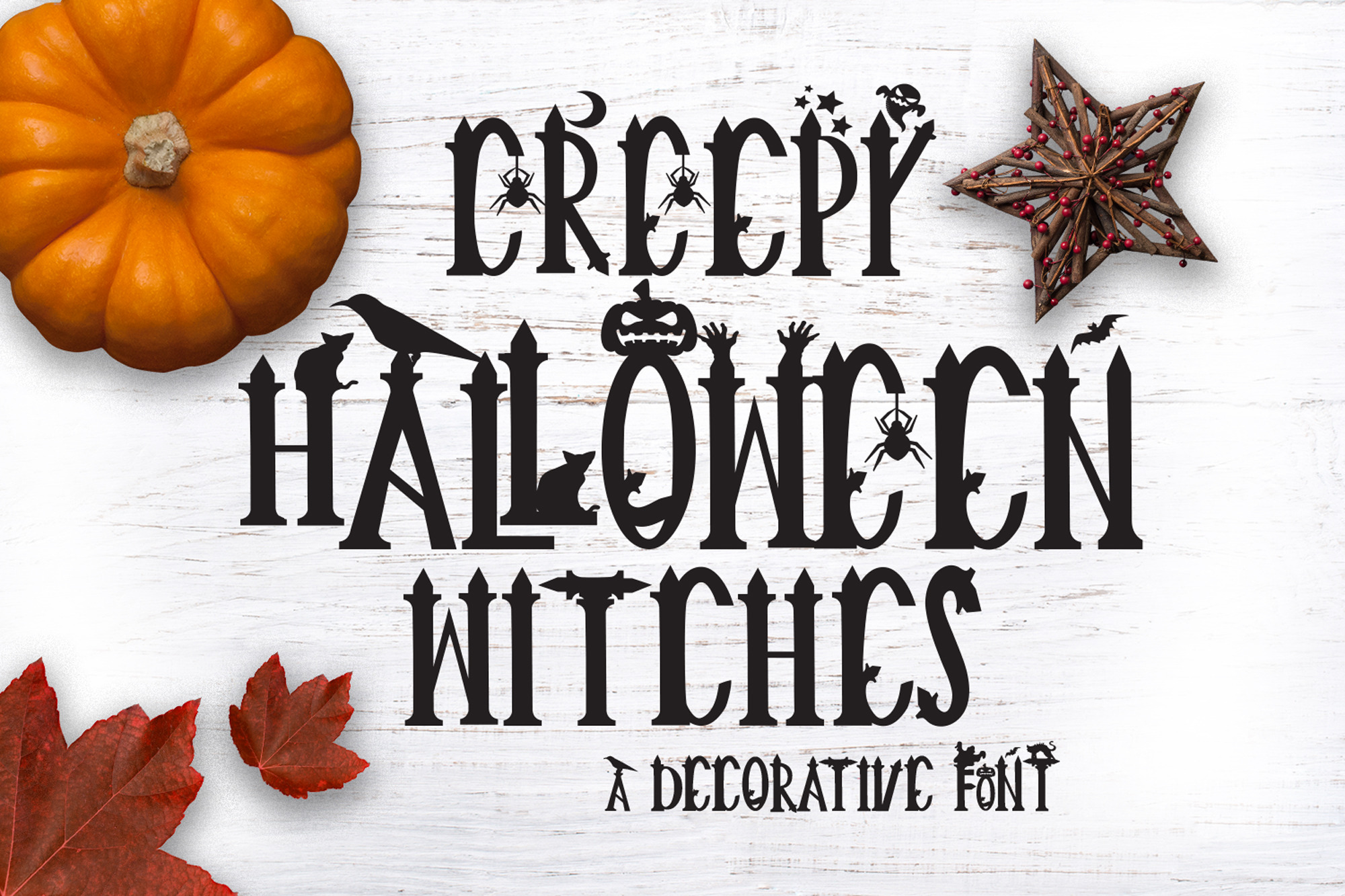
Creepy Halloween Font is on Open Type Font for display/decorative use. Ideal for your Halloween Projects such as invitations, flyers, logo or even crafting creations.
Easy to access standard characters. Use Capitals or Small Letter to alternate between the simple and the decorative version.